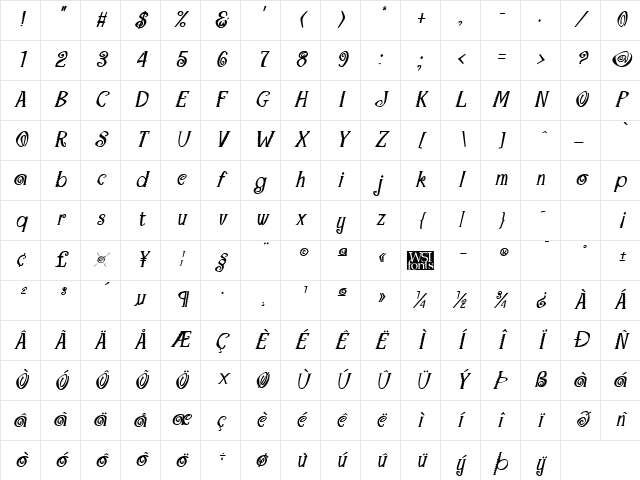
Maraca Bold Italic
Maraca Family
Maraca Bold Italic
Design Context for Maraca
Maraca is a composed and adaptable typeface that performs quietly and consistently across a wide range of design contexts. The slanted form adds forward momentum and visual energy. Its bold stroke weight gives it real presence on the page.
Pro Tip: Use Maraca for emphasis, pull quotes, and subheadings where its slanted energy can add rhythm to the layout.